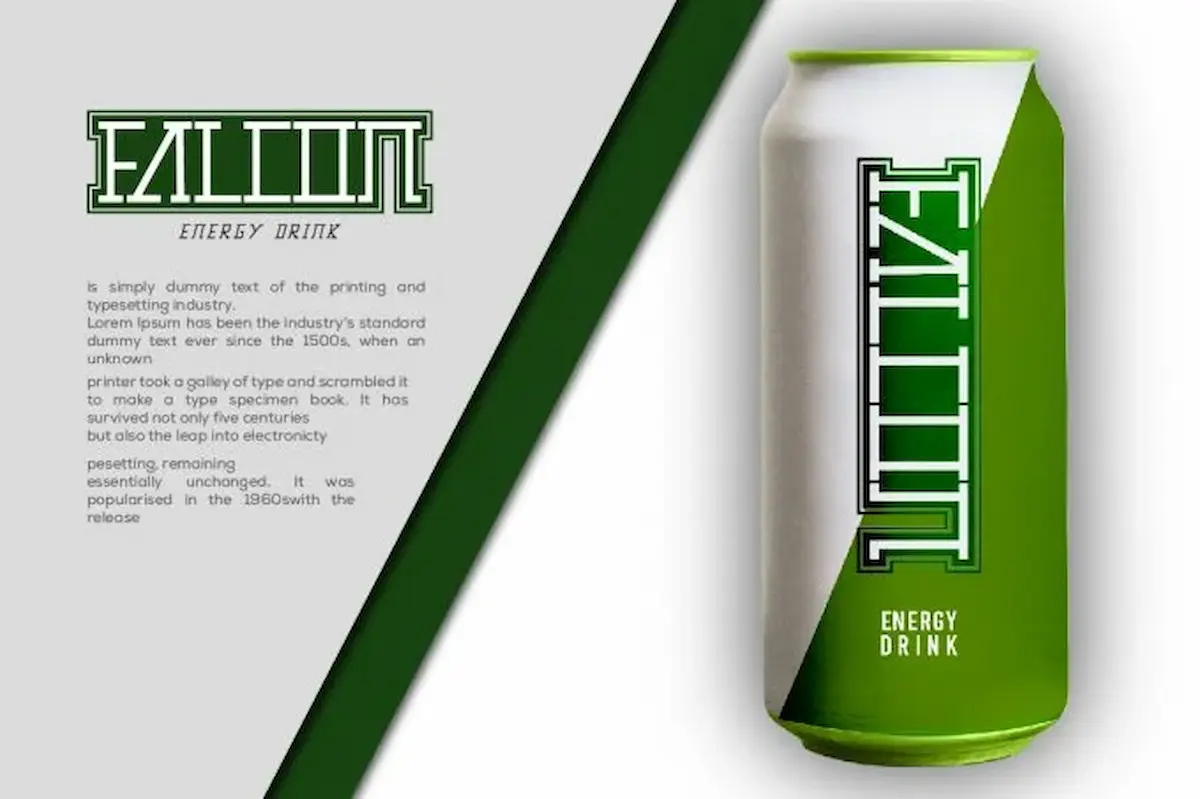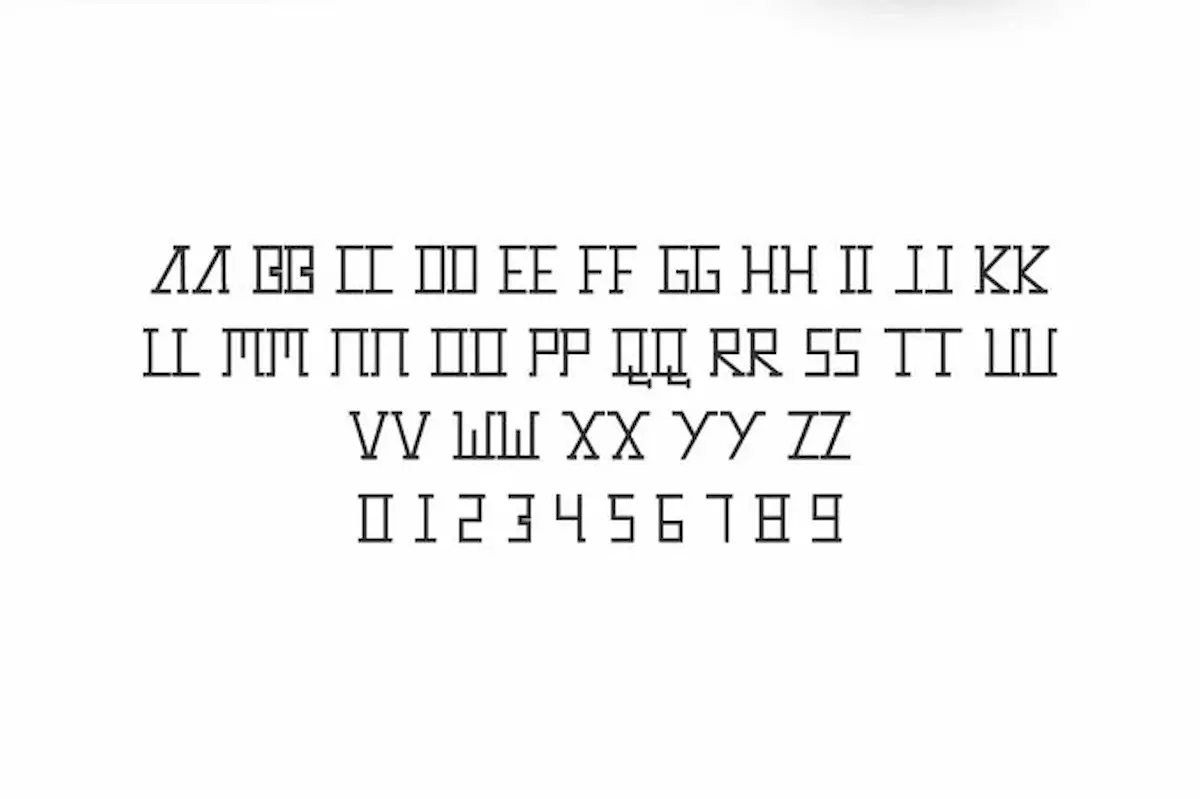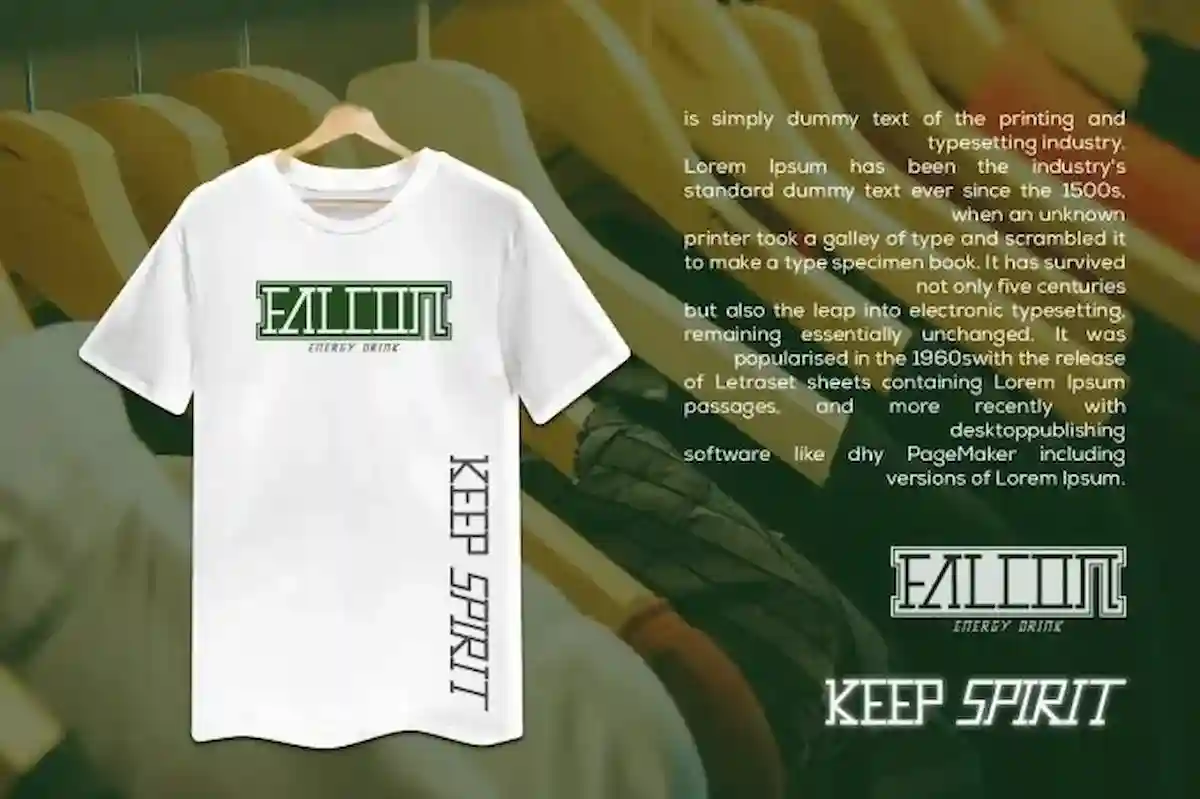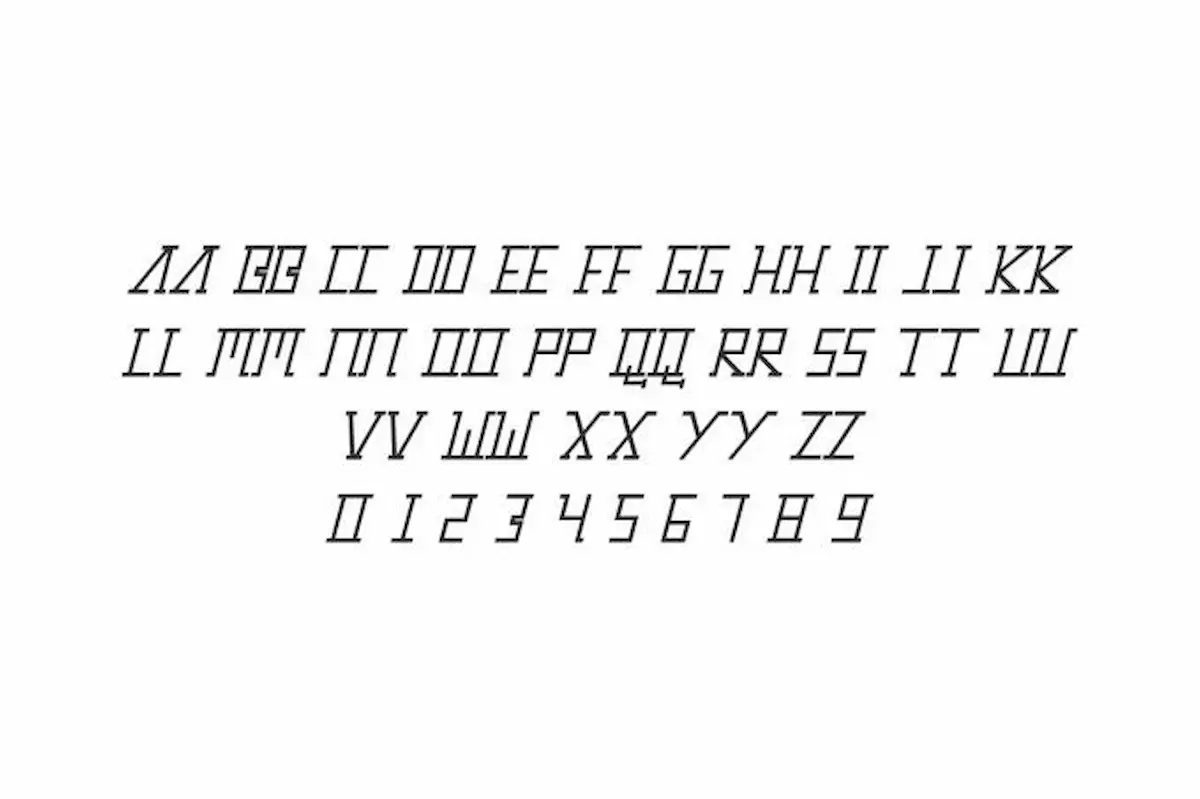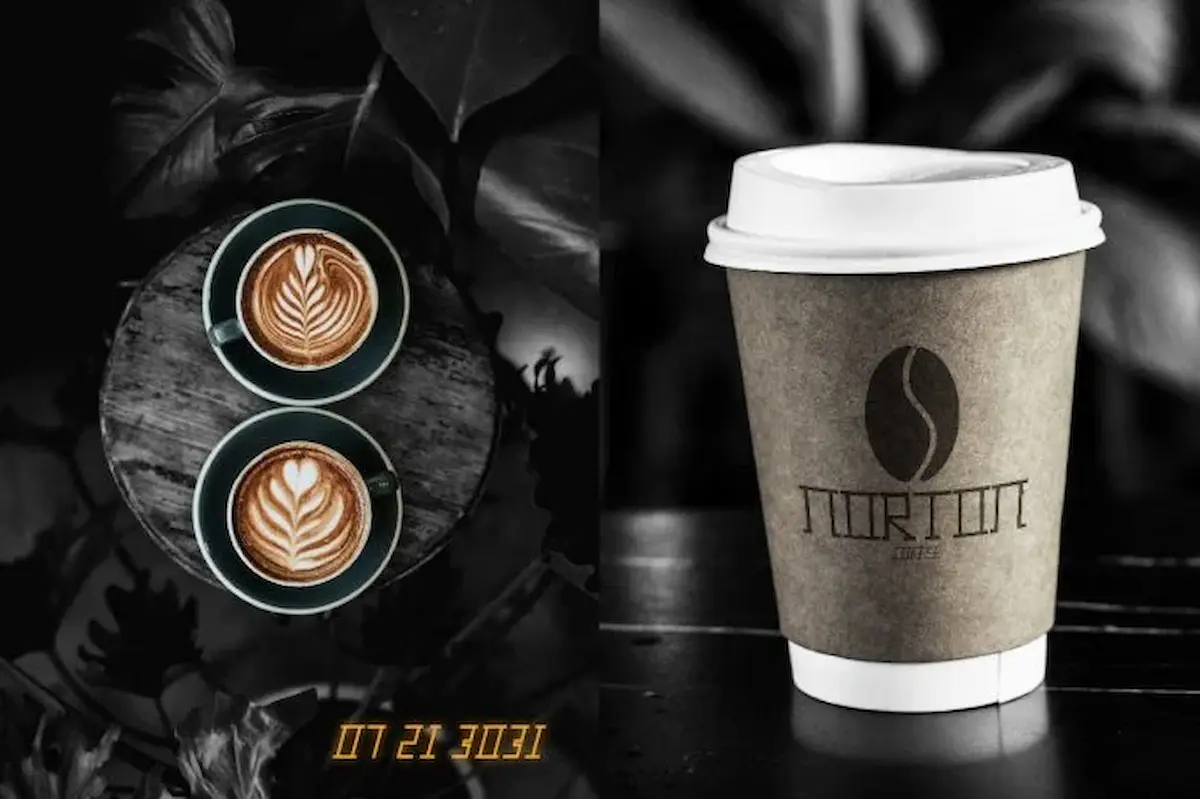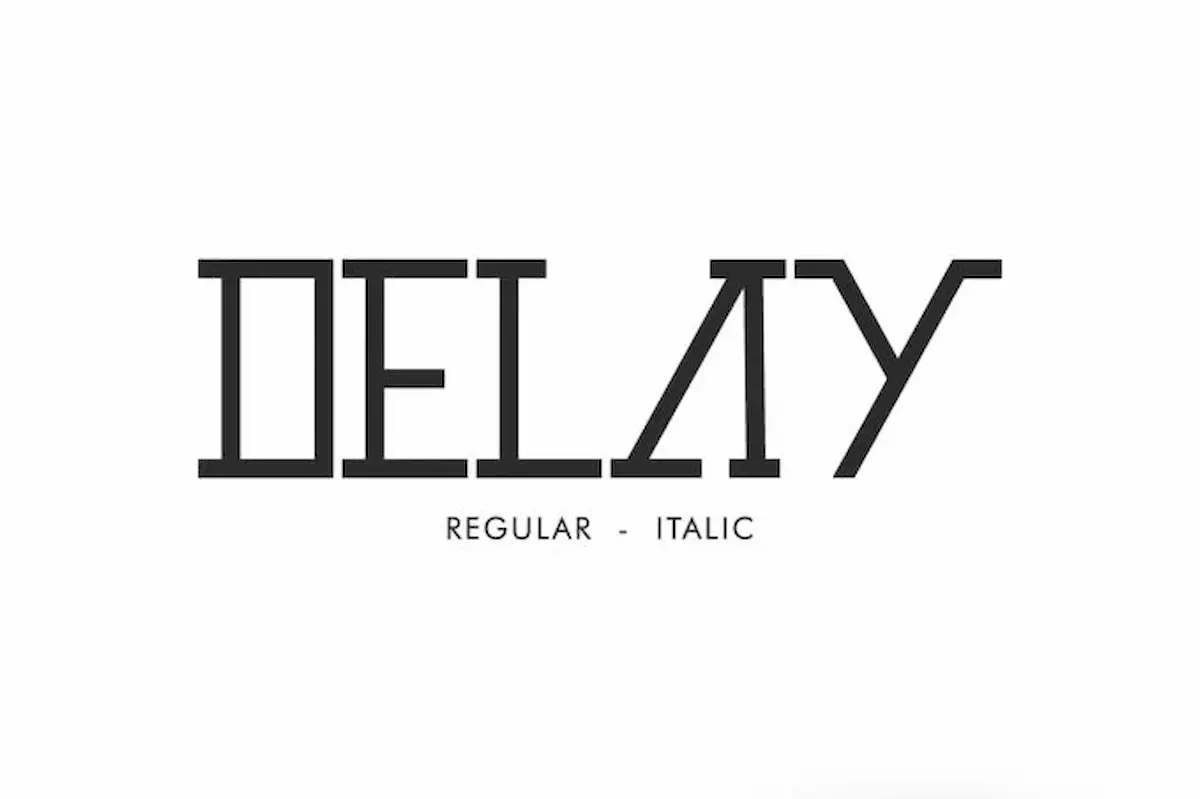
Delay Font
Delay Font is a sans serif display font by NihStudio, made in 2020. Delay comes with two style : reguler and italic
Delay Font is a sans serif display font family with two different styles : Reguler and italic. Originally made by NihStudio. On the package you will get :